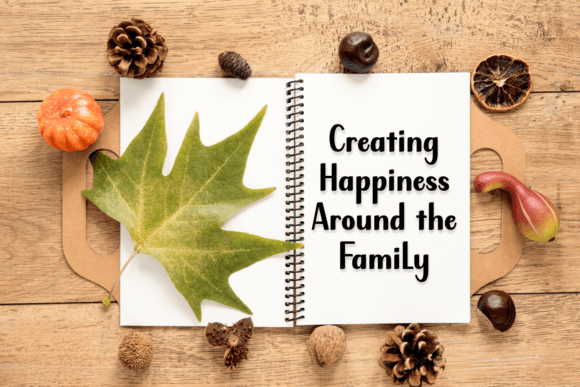
Introduction to Magical Creation Font
Do you remember the thrill of discovering a new design resource that instantly sparks creativity and takes your projects to the next level? For me, it was the Magical Creation Font – a beautifully crafted, handwritten font that radiates warmth and charm. Its unique style has been a game-changer in my design journey, and I’m excited to share its magic with you.
Whether you’re a seasoned designer or just starting out, the Magical Creation Font is an invaluable addition to your creative toolkit. With its versatility and high-quality design, it’s perfect for a wide range of applications, from sublimation t-shirts and card designs to wall art and blog content. Plus, its transparent background makes it easy to use in various creative projects, and the best part? It’s available for free download!
So, what makes the Magical Creation Font so special? Its ability to add an endearing touch to your designs, that’s what! With its homely and inviting feel, it’s ideal for clothing apparel illustrations, branding, and packaging – making it a must-have resource for any designer looking to elevate their creative projects.
Key Features of Magical Creation Font
- High-quality, intricately designed font with transparent background, ideal for creative projects and designs.
- Designed with a focus on creativity and imagination, making it perfect for artistic and design-related projects.
- Unique and magical design elements, such as sparkles and stars, add an extra touch of creativity to any project.
- Perfect for use in digital art, graphic design, and other creative endeavors, as well as for personal use in crafting and scrapbooking.
Honest Review: Magical Creation Font
I recently had the chance to dive into the Magical Creation Font, and I must say it’s been a delightful addition to my design arsenal. ✨ This free download has been a game-changer for my creative projects, offering a plethora of unique and whimsical characters that bring an air of magic to any design.
The font’s high-quality design and transparent background make it incredibly versatile, allowing me to seamlessly integrate it into my projects without any hassle. I’ve used it for a variety of designs, from children’s book illustrations to fantasy-themed posters, and the results have been nothing short of enchanting.
- Unique and whimsical characters
- Not suitable for formal or professional designs
- Some characters may be too ornate for simpler designs
- Limited character set compared to other fonts
Overall, I’m thoroughly impressed with the Magical Creation Font, and I’d highly recommend it to anyone looking to add a touch of magic to their designs. Just remember to use it judiciously, as its whimsical nature may not be suitable for all projects. ⚠️
The Magical Creation Font is perfect for a wide range of creative projects, including:
- Presentation and marketing materials
- Report and document design